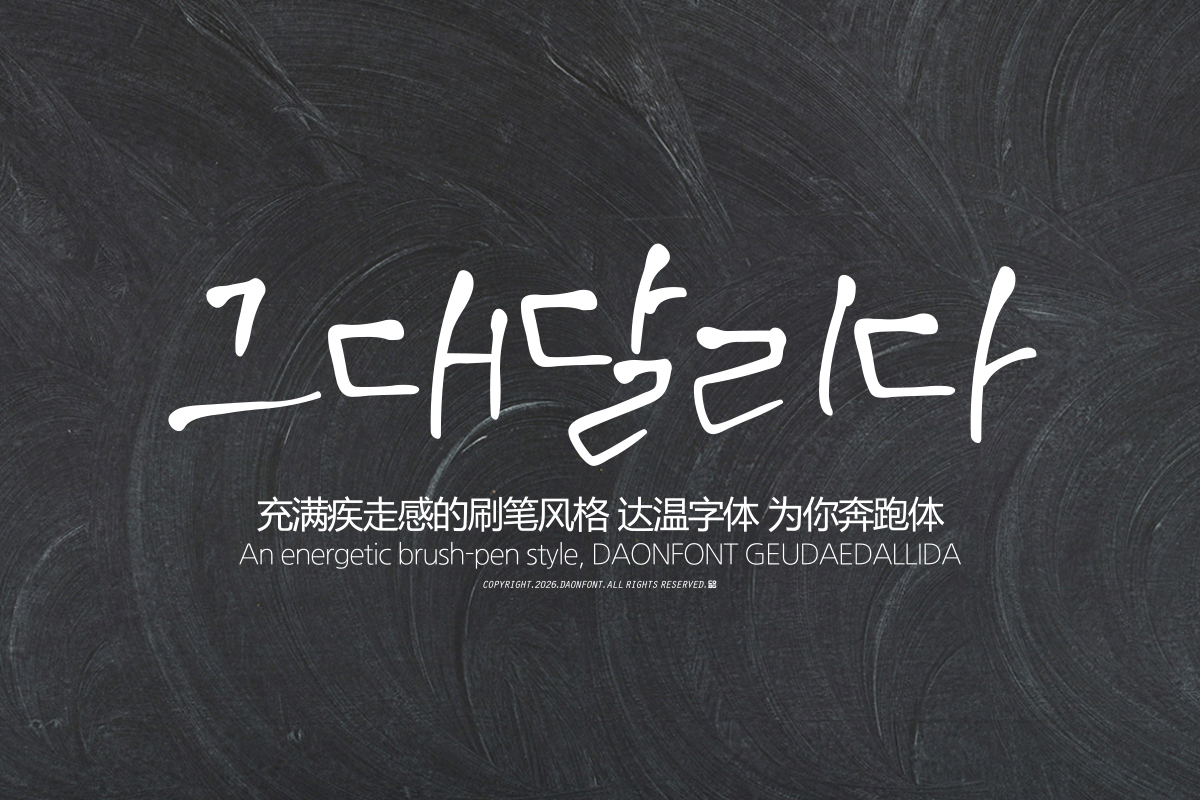
DAON GEUDAEDALLIDA(M)
'GEUDAEDALLIDA' is a Hangul typeface that rhythmically expresses the natural movement of calligraphy. 'GEUDAEDALLIDA' is particularly attractive for use in content that conveys emotional messages. It allows you to create typography with a soft and lyrical atmosphere in various design projects, such as book titles, essay designs, posters, card news, social media content, and video subtitles.